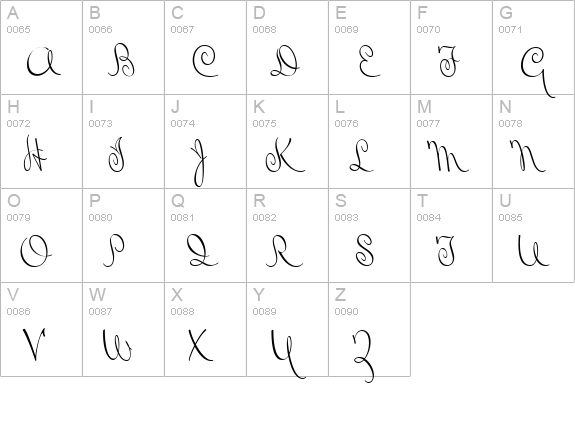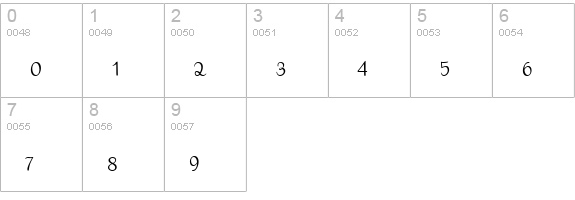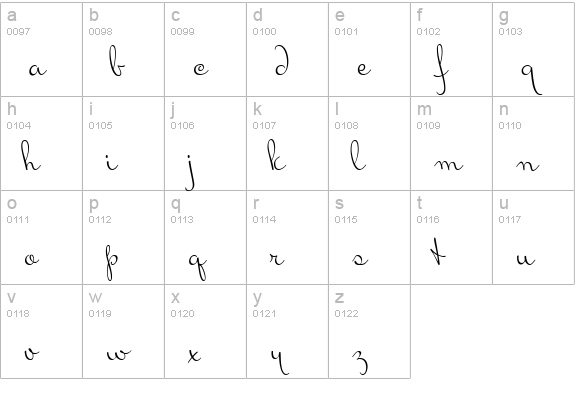
MrsVonEckley-Regular Font Details
MrsVonEckley-Regular is the standard, neutral variant in the MrsVonEckley typeface family \xE2\x80\x94 well suited to general body text, paragraphs, and standard typographic work.
MrsVonEckley-Regular font is a charming and elegant typeface that exudes sophistication and grace. Its delicate serifs and graceful curves make it perfect for adding a touch of class to your designs. Whether you're creating wedding invitations, branding materials, or elegant social media graphics, MrsVonEckley-Regular font is sure to impress. What's even better is that MrsVonEckley-Regular font is completely free to download at FontsMarket.com. This means you can add this beautiful font to your collection without breaking the bank. Don't miss out on the opportunity to enhance your designs with this timeless and versatile typeface. Download MrsVonEckley-Regular font today and elevate your projects with its classic beauty.